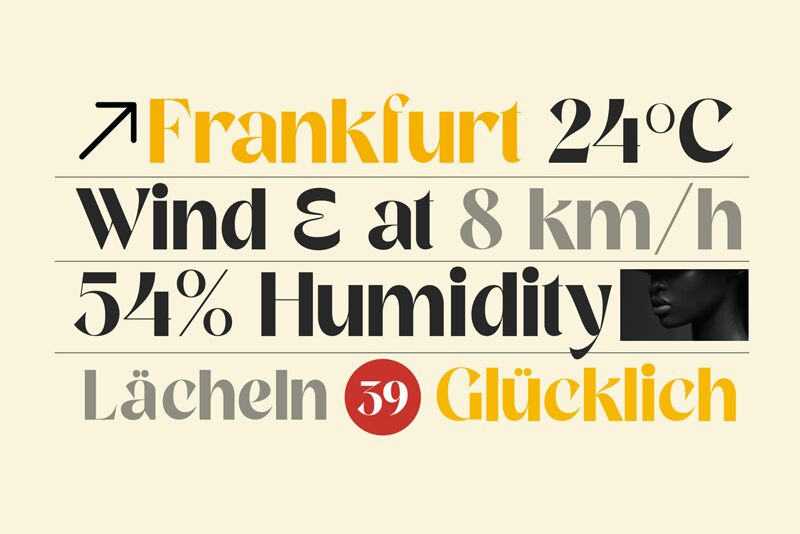
REVERIE-Regular
Reverie font is a bold display typeface designed by VampStudio that stands out in every way. Elegant and modern, each character manages to showcase a highly sophisticated design with refined details and timeless features. Make use of the glamorous high-contrast structure for a unique appearance that everybody will appreciate within seconds.
Whether it’s designing posters, social media posts, quotes images, headlines, or other similar uses; this free display font knows exactly how to deliver an amazing visual effect instantly. In keeping with harmonious flow between all characters’ shapes and sizes; much more creative ideas are possible!